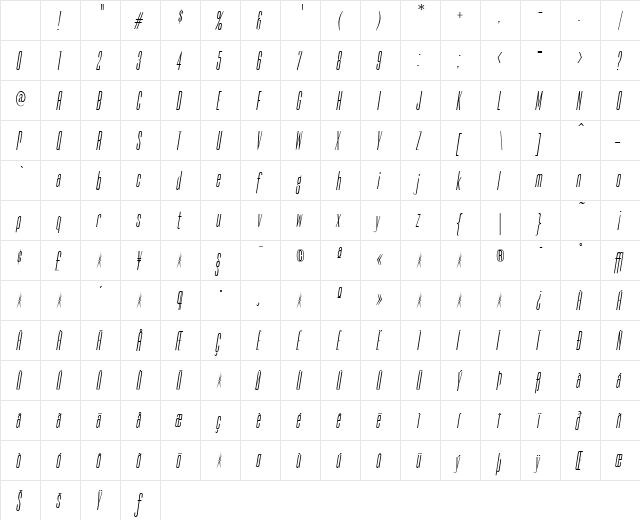
Empire is a composed and adaptable typeface that performs quietly and consistently across a wide range of design contexts. The slanted form adds forward momentum and visual energy.
Pro Tip: Use Empire for emphasis, pull quotes, and subheadings where its slanted energy can add rhythm to the layout.